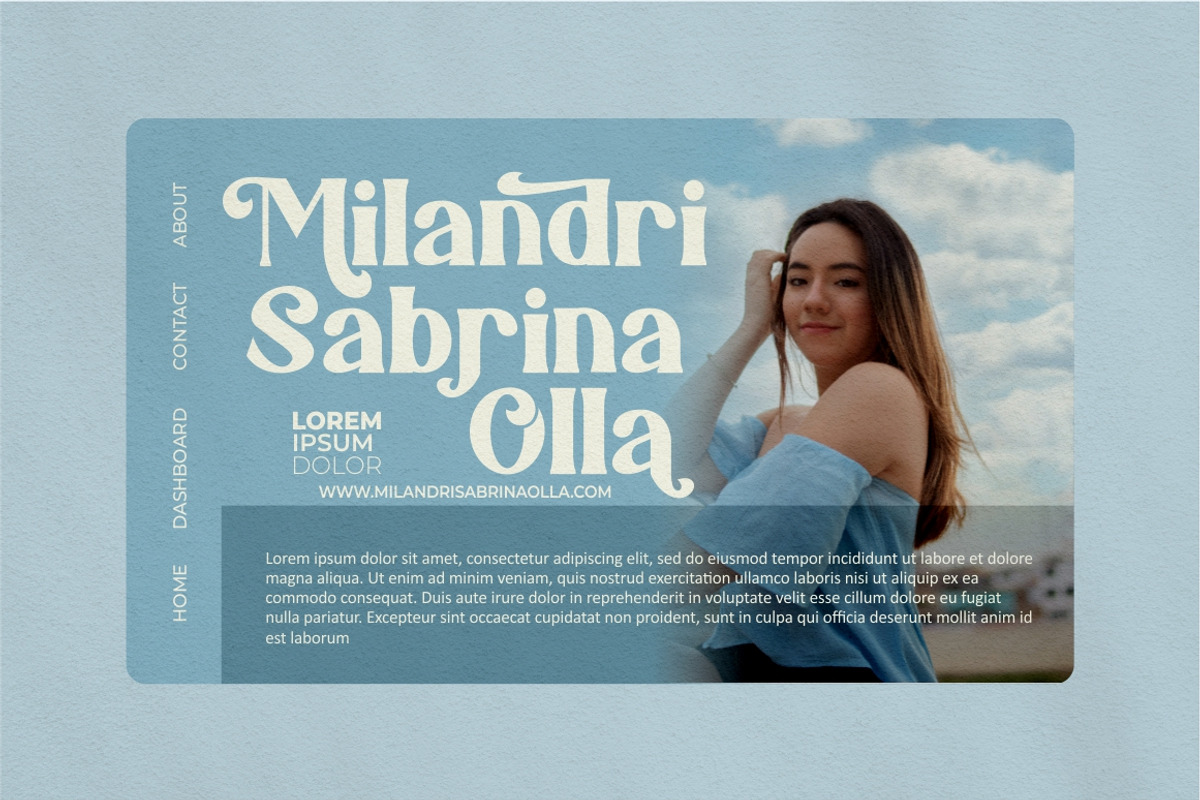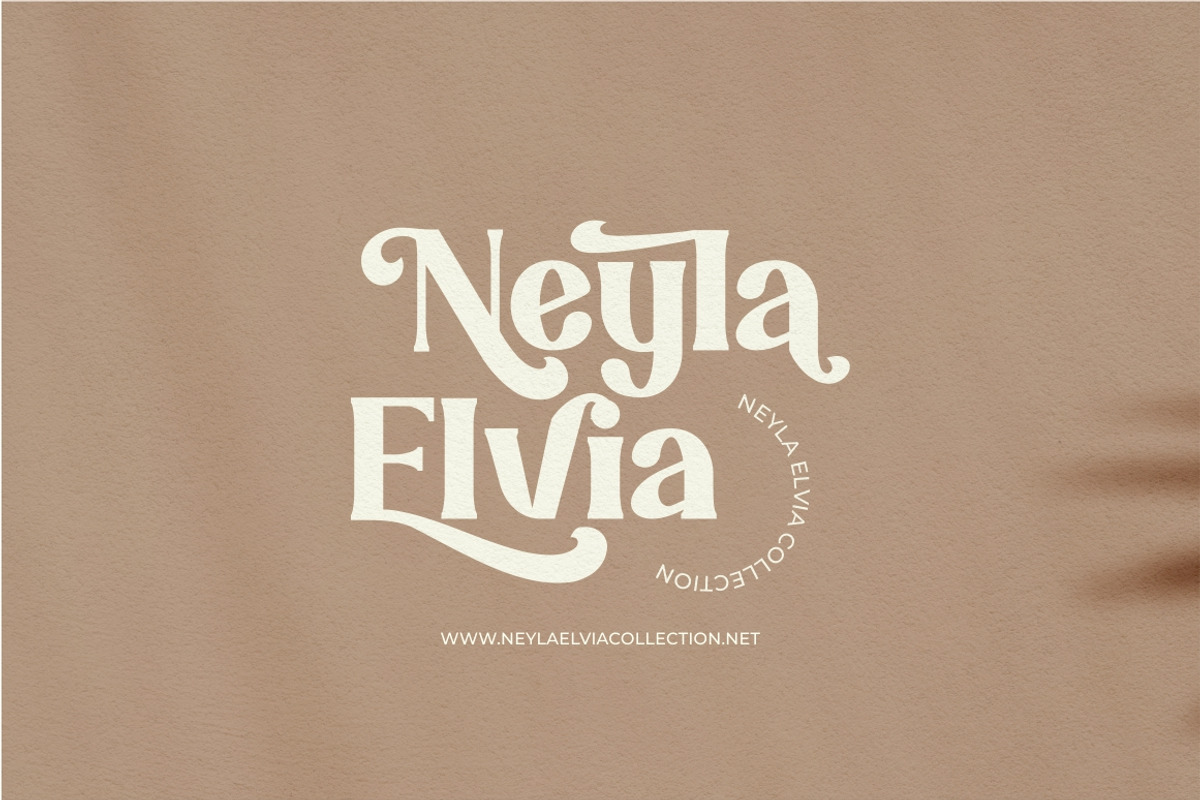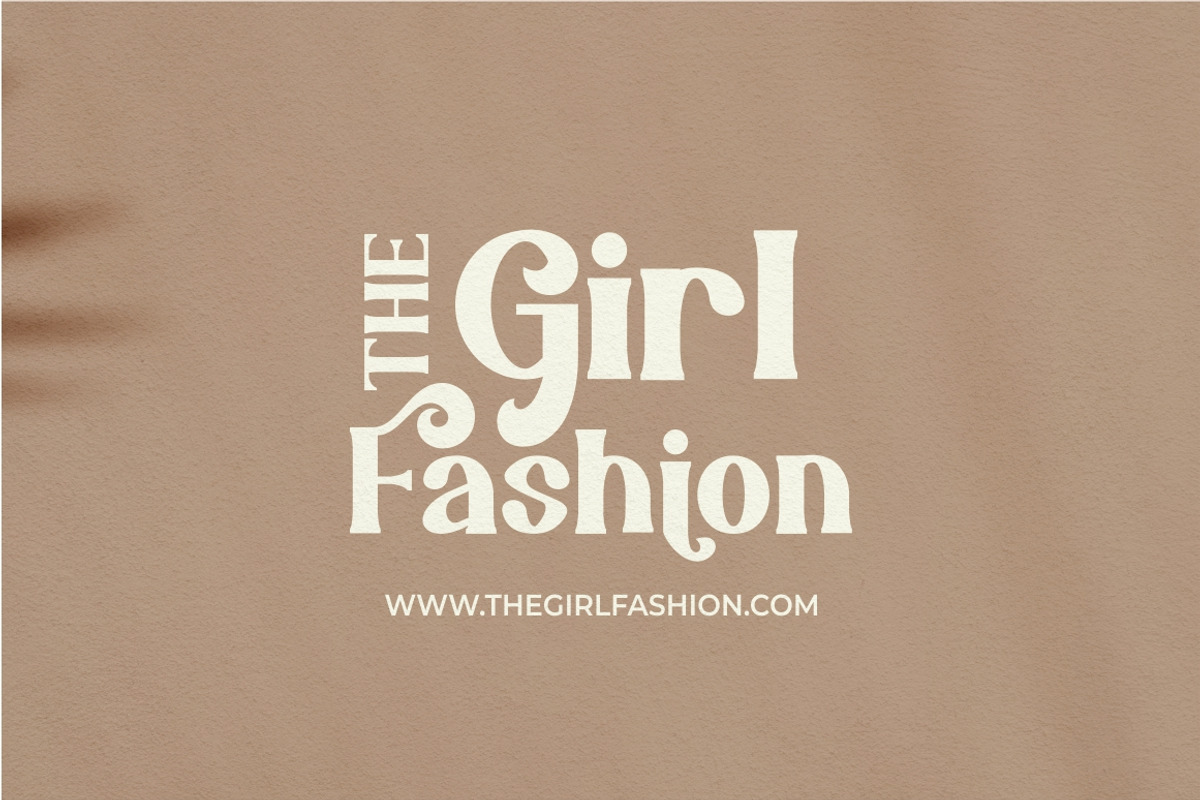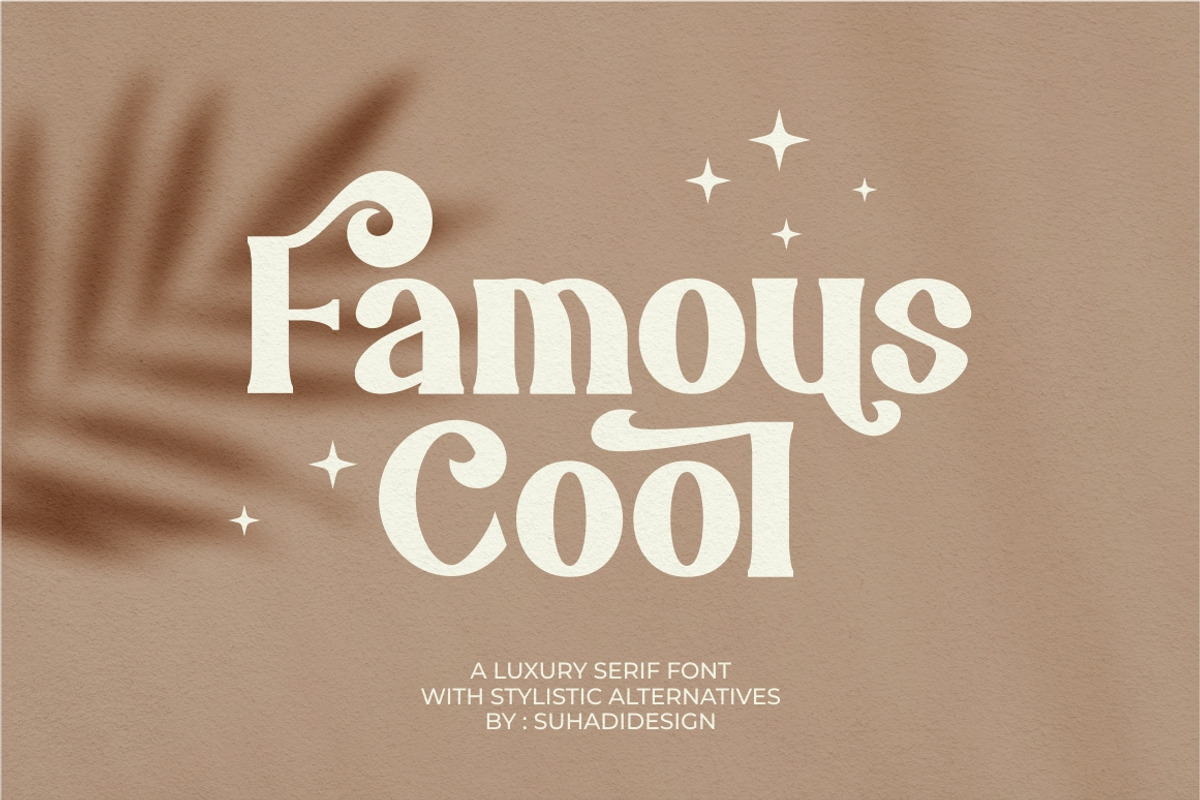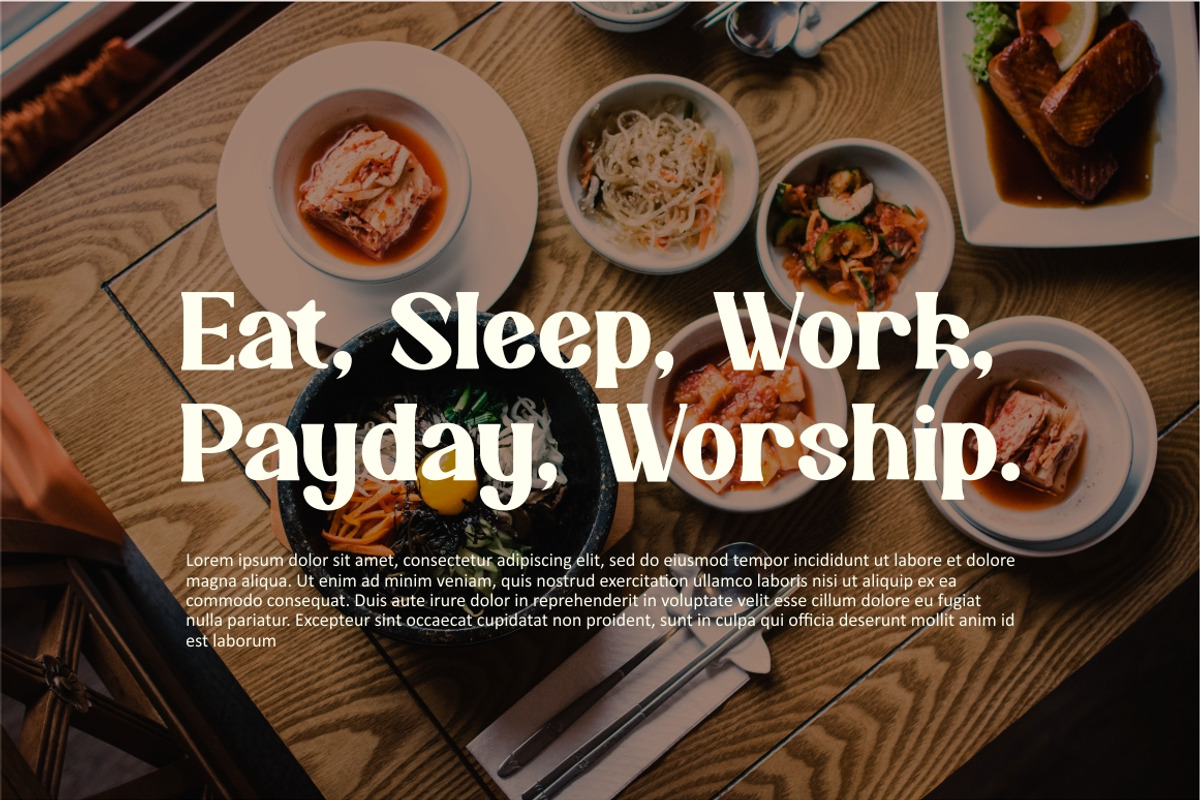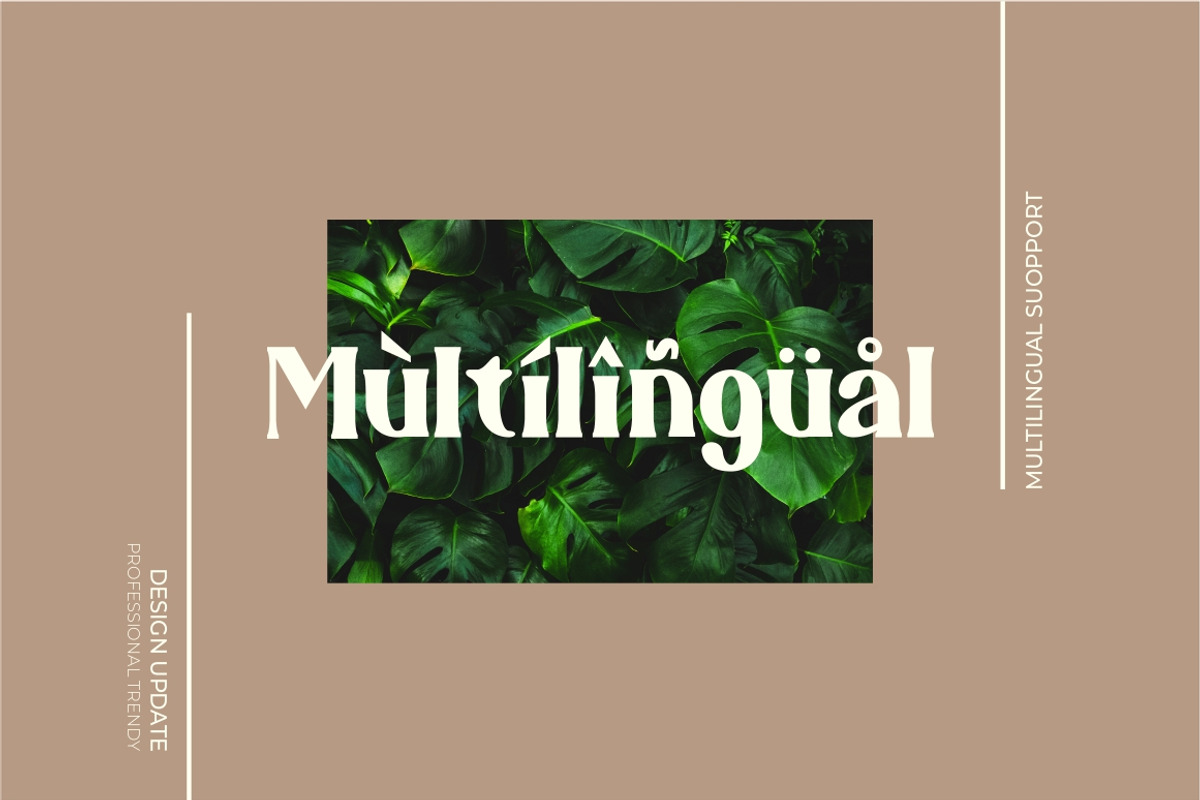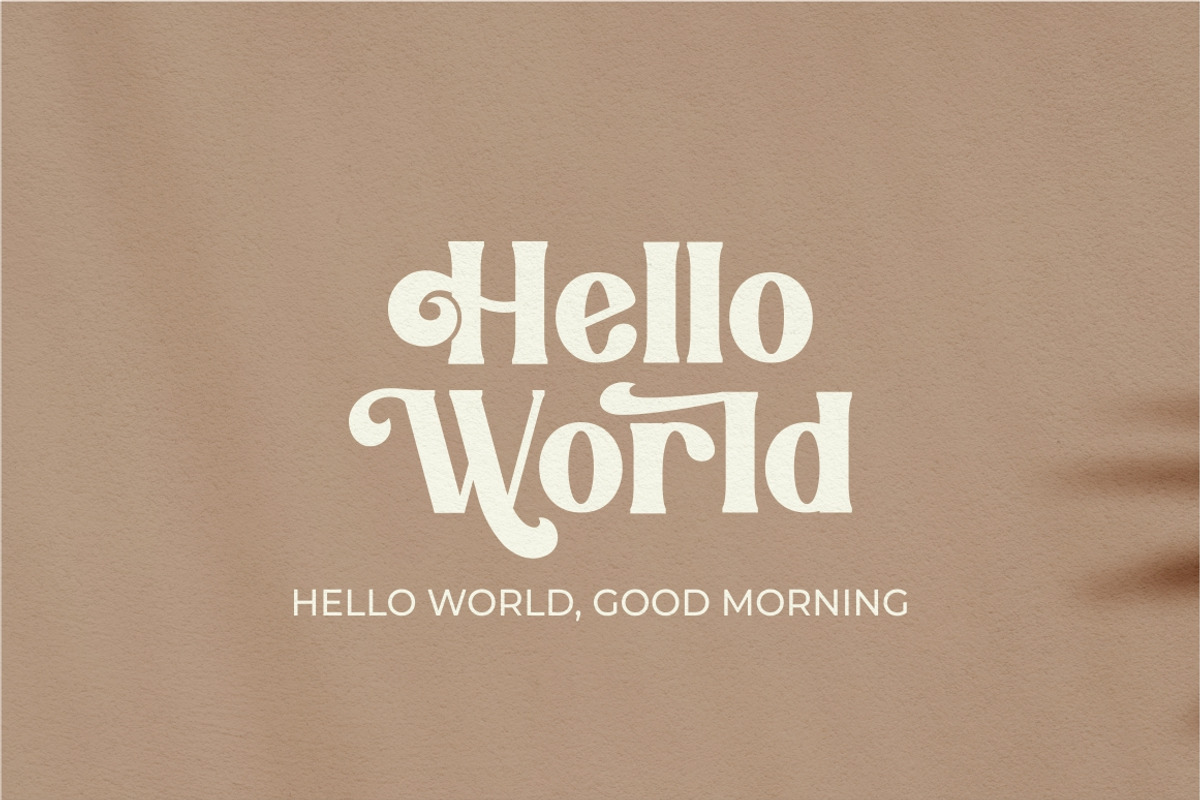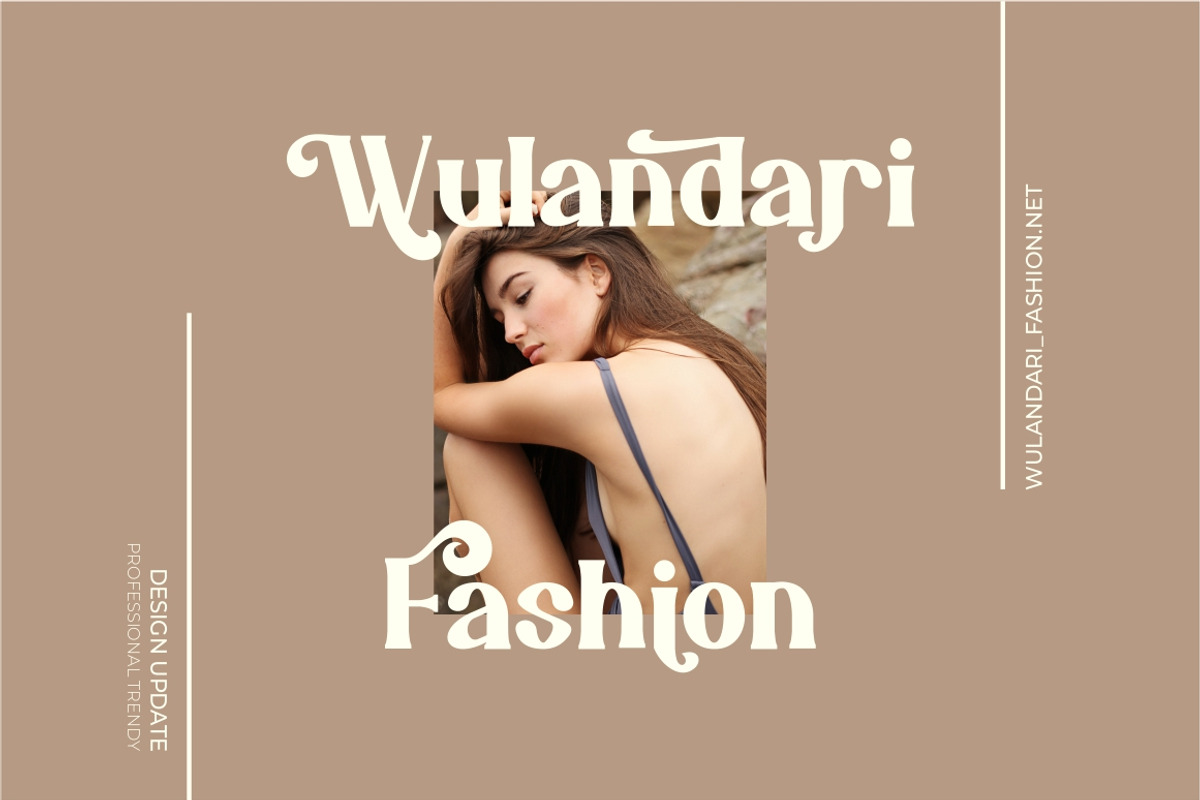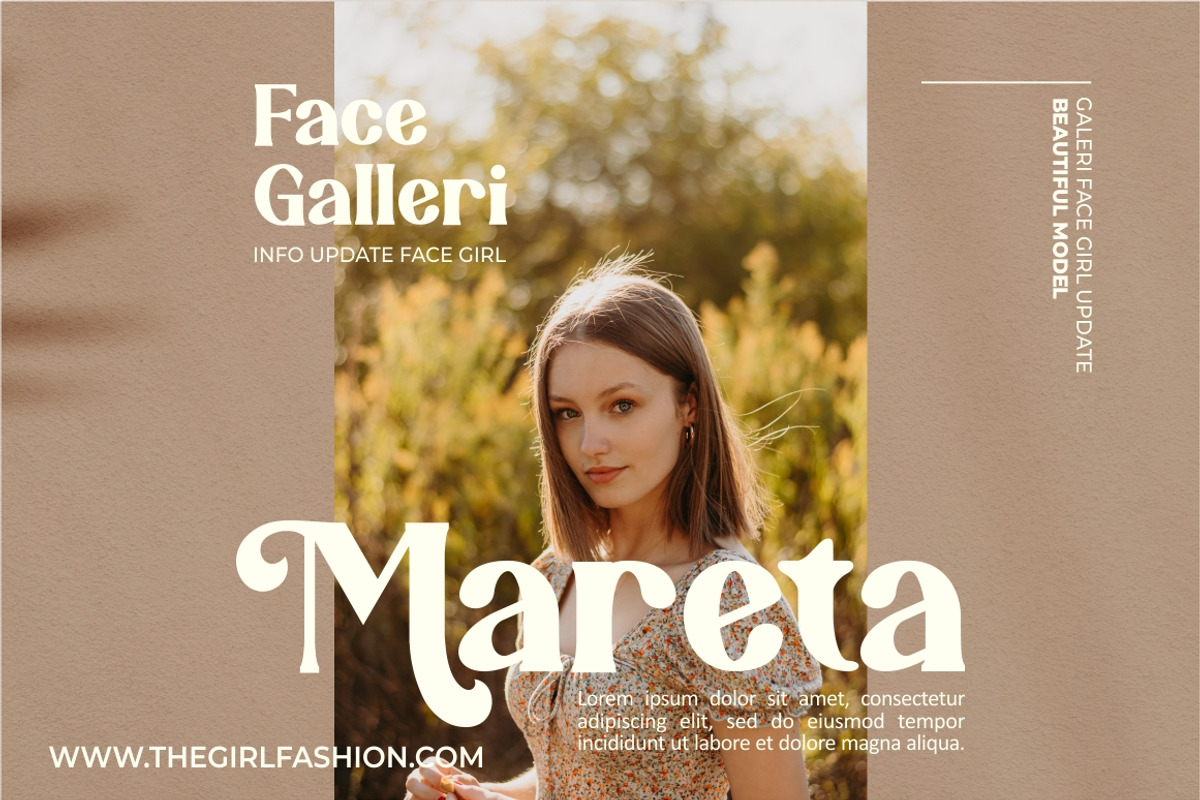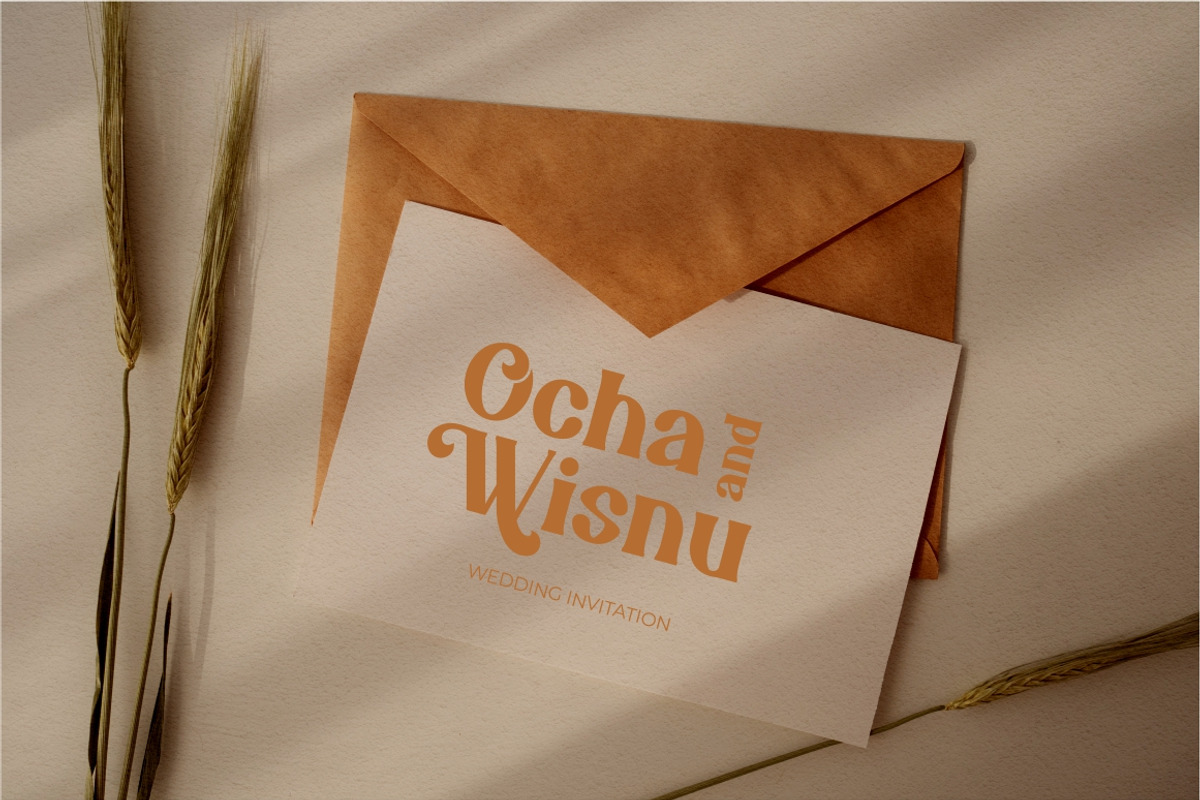
Famous Cool gorgeous typefaces
Hi Ladies and Gentlemen! According to market demand, fonts are more likely to be modern fonts, so I decided to make this serif font that you have in mind. Famous Cool font is a very beautiful and popular alternate serif font, comes in a modern style hoping to become a market favorite. We keep this font looking elegant, classy, easy to read, stylish, attractive and easy to use. Famous Cool Font is a great choice for beauty brands, magazines, retro designs, newspapers, books, brand names, branding, brands, quotes, album covers and other projects. Famous Cool fonts are here to take your designs to another level.
• Standard uppercase and lowercase letters • Stylistic alternate uppercase letters, and alternative lowercase letters of choice • Multilingual Support • Numeral and punctuation